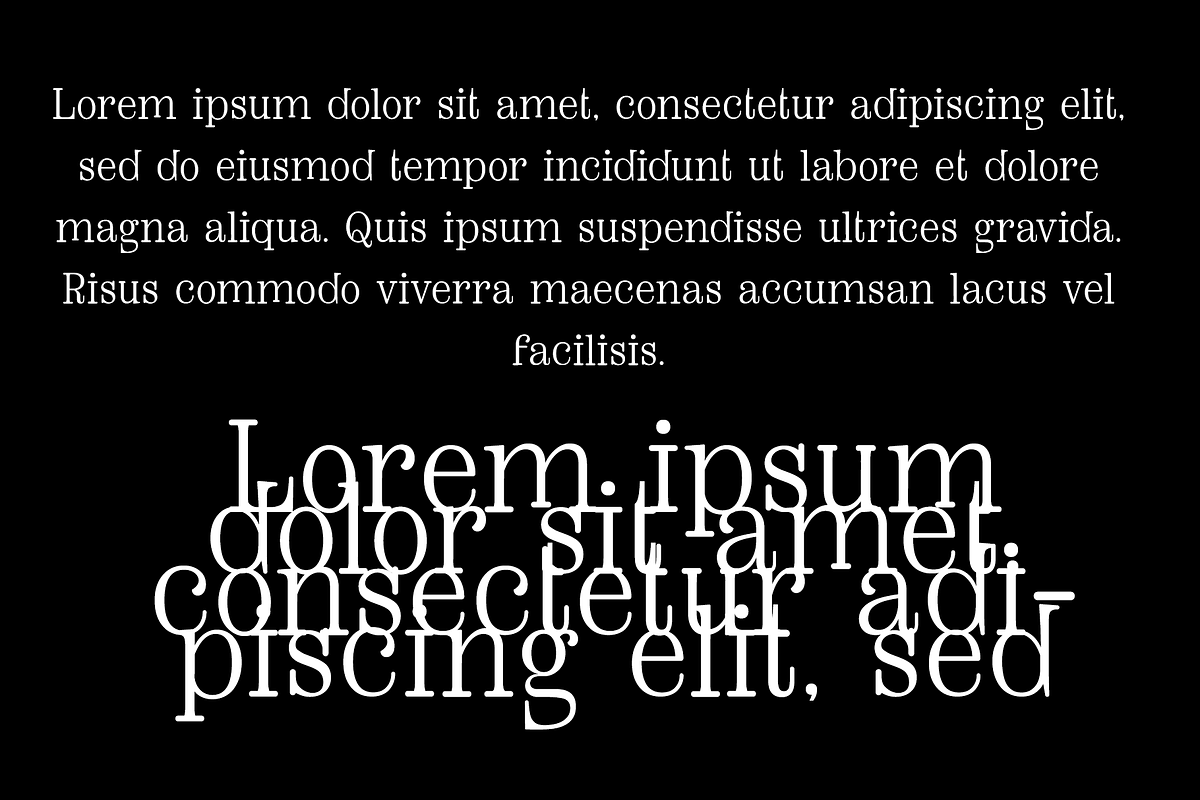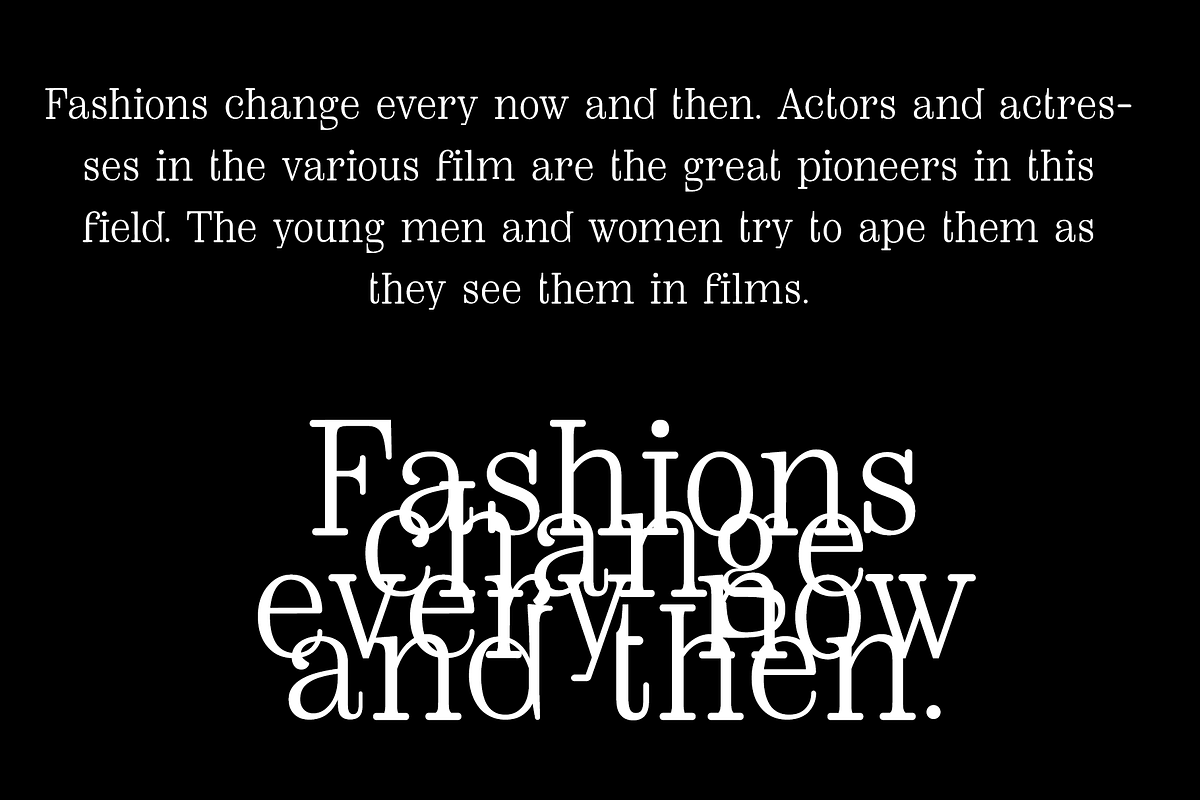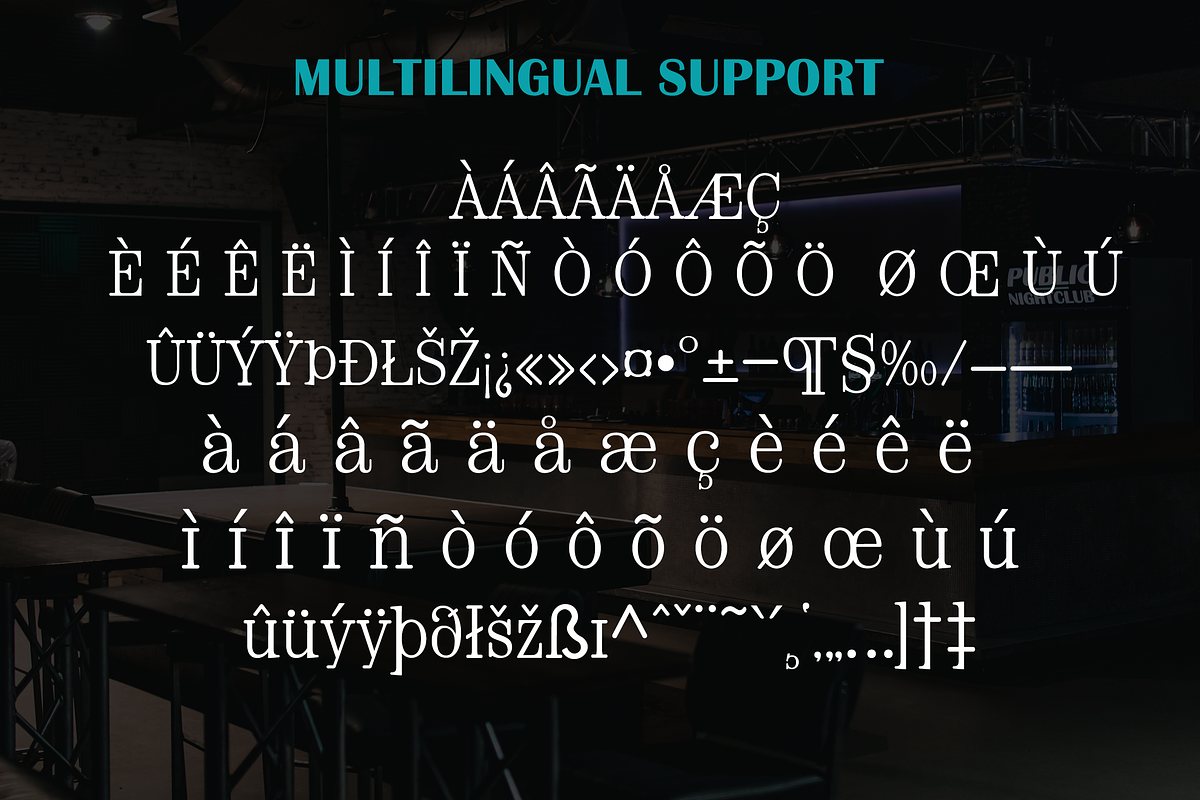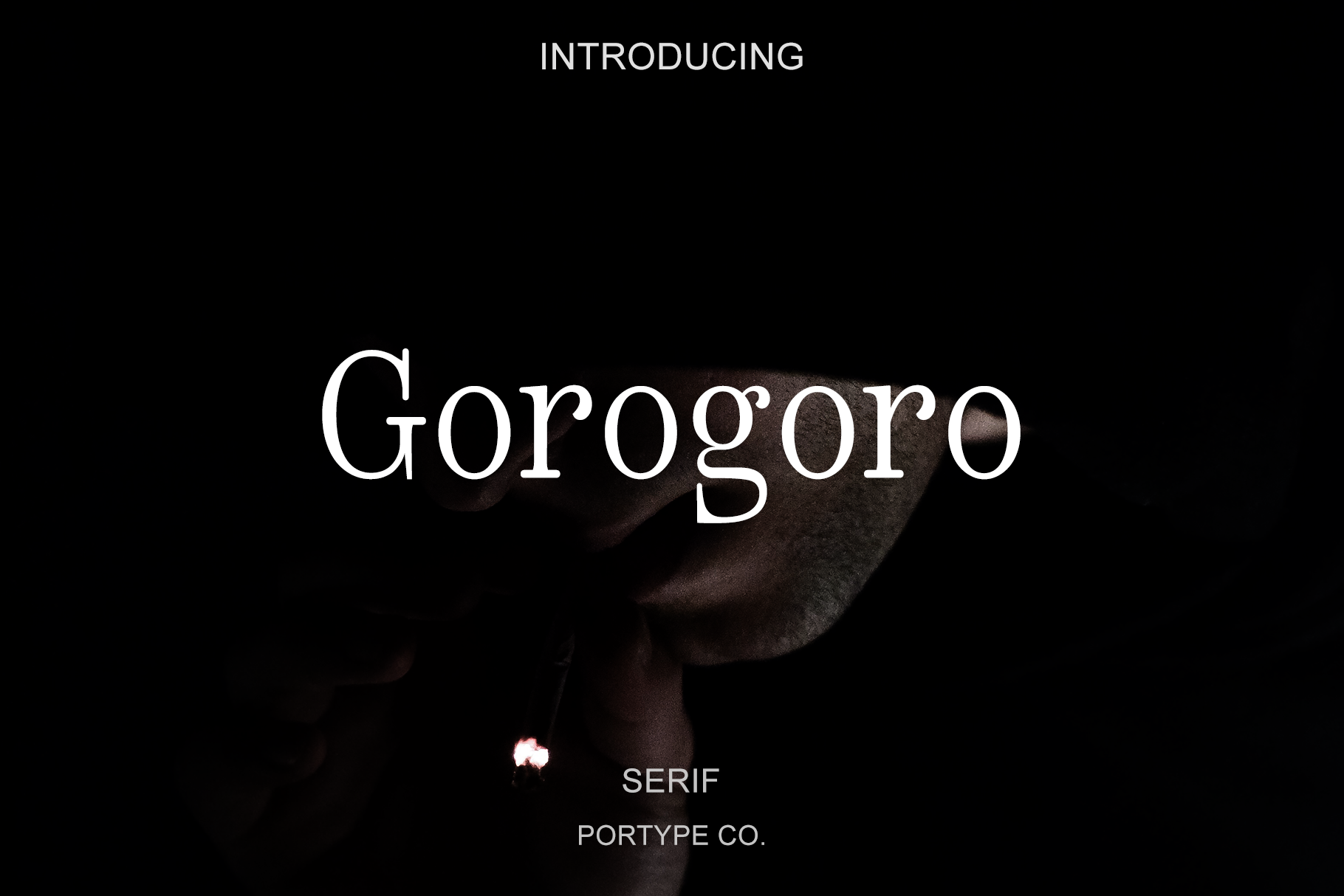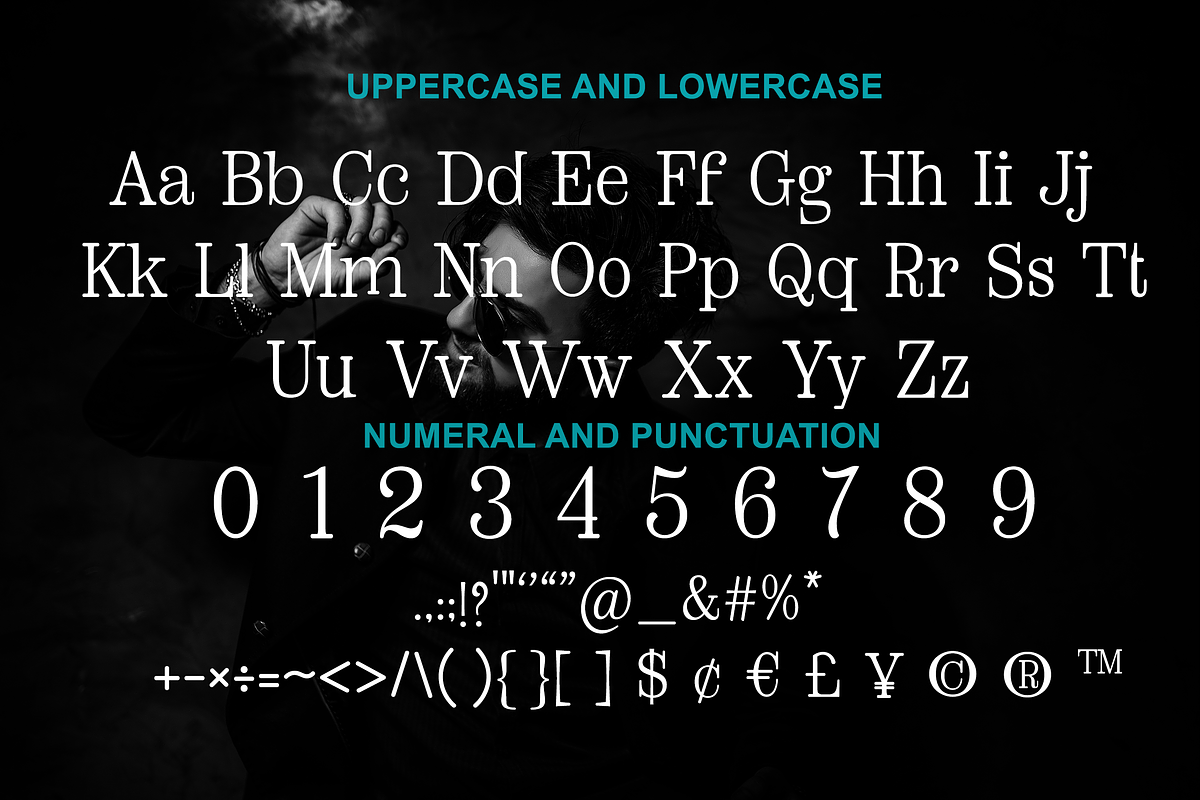
Gorogoro-Serif font
Gorogoro is a Serif font, made with love. The font looks casual and playful. It's perfect for clothing , sweet greeting cards, beautiful quotes, and stand-out branding as well. Suitable for any design needs, branding, urban design, modern advertising design, Book/Cover Title, special events, adventures, headlines, clothing and more.